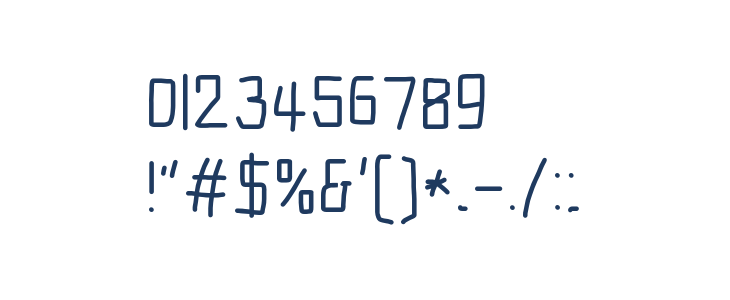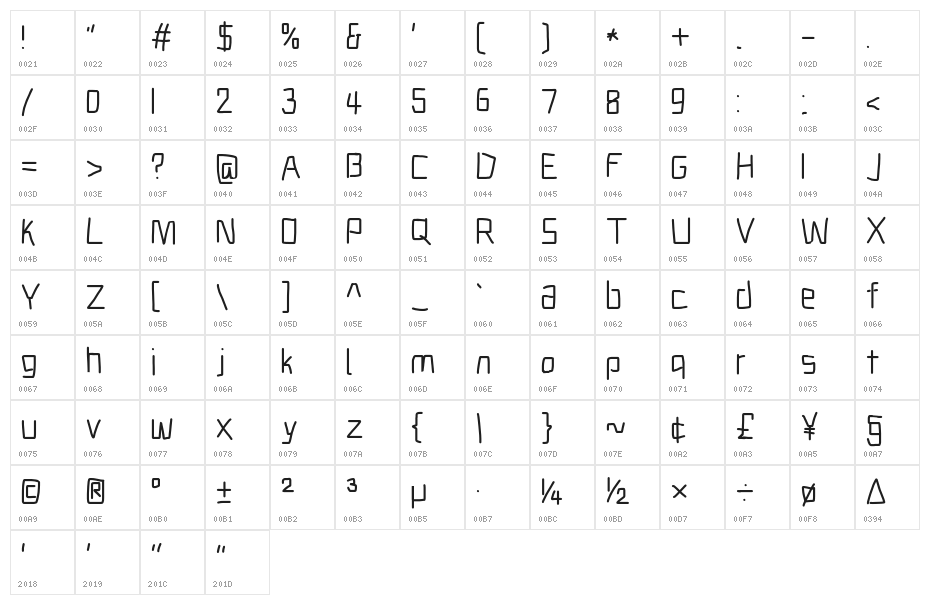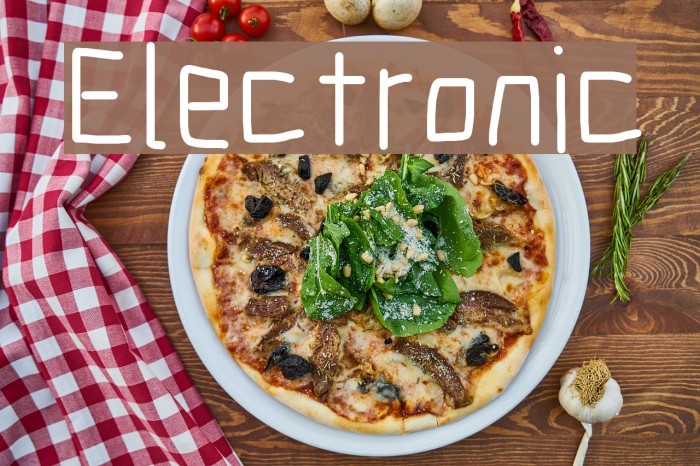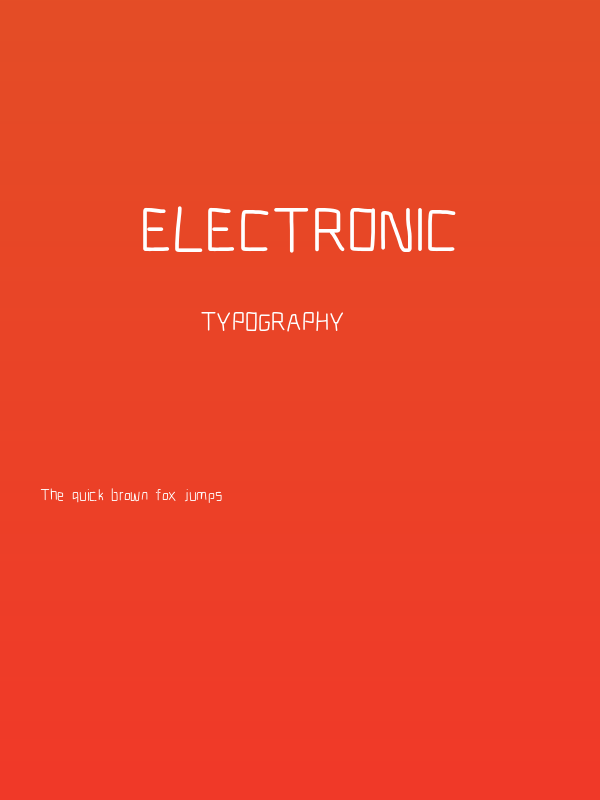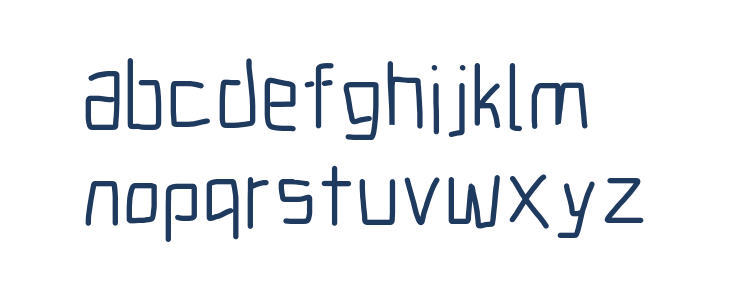
Electronic Font
Electronic Description
This font features a modern, geometric design with a hand-drawn aesthetic. The characters are constructed with consistent stroke widths, giving it a uniform appearance. The uppercase and lowercase letters maintain a playful yet structured form, with rounded edges that soften the overall look. The numerals and special characters follow the same style, ensuring cohesion across all elements. Its unique style makes it suitable for creative projects that require a touch of individuality and flair.
| Use Case | Logos, Headlines, Posters |
| Proposed Projects | Ideal for creative branding, children's books, casual invitations, and artistic posters. |